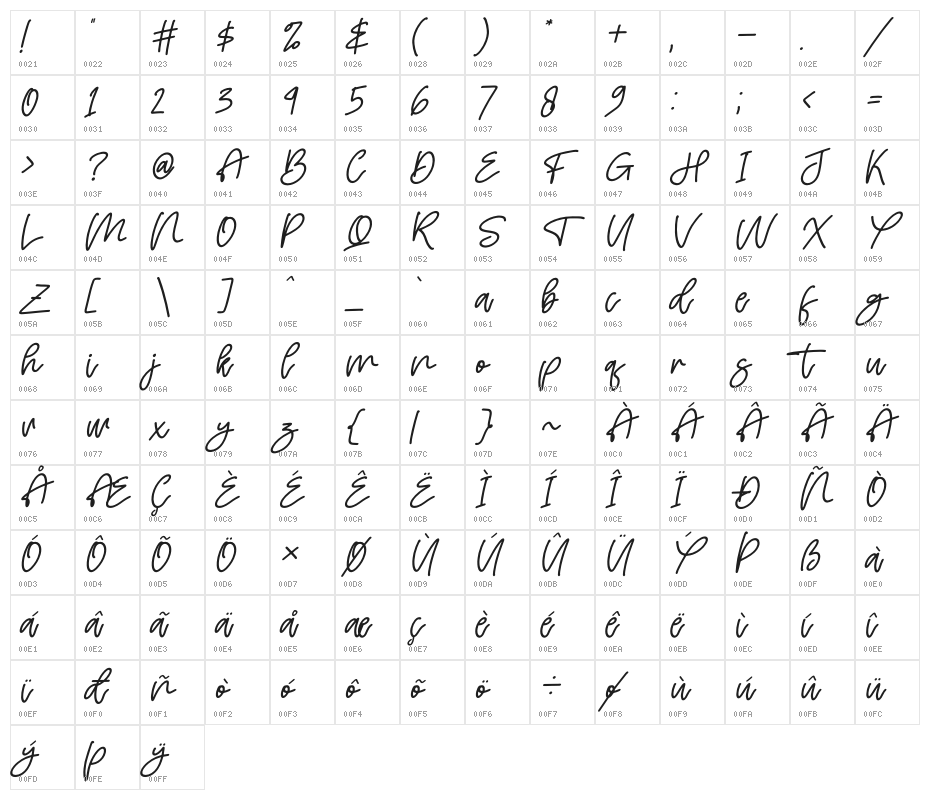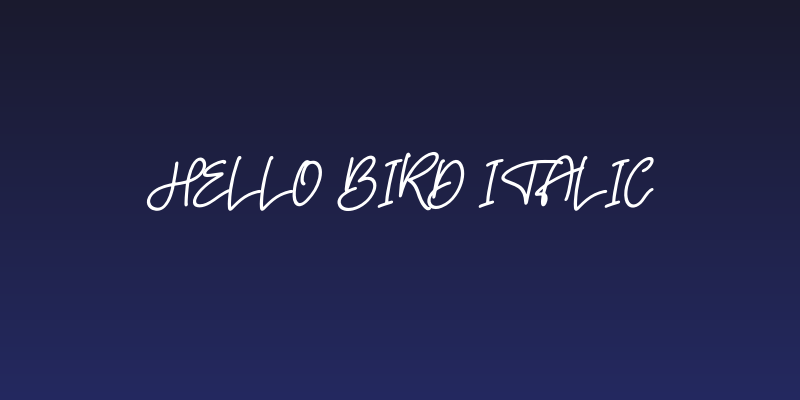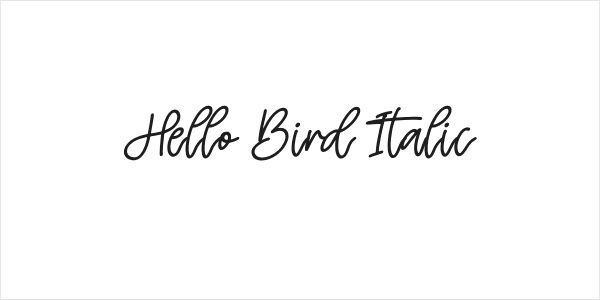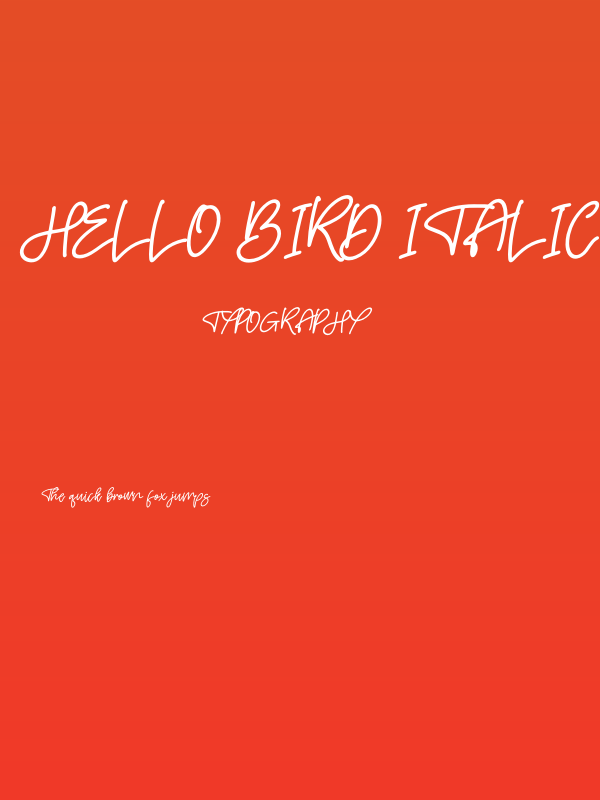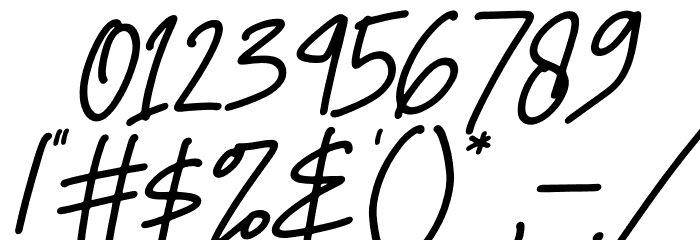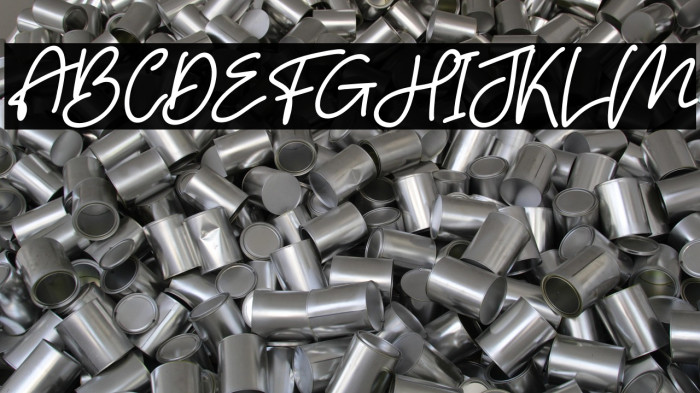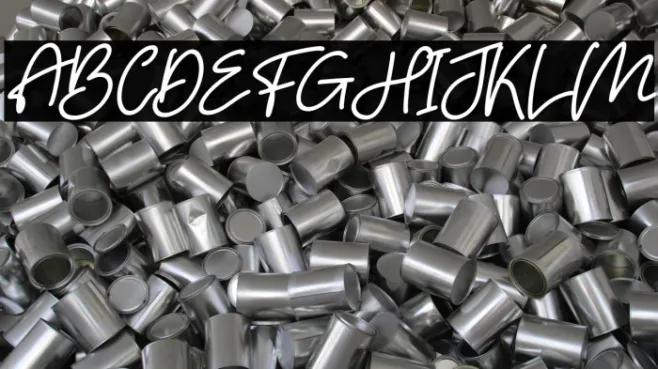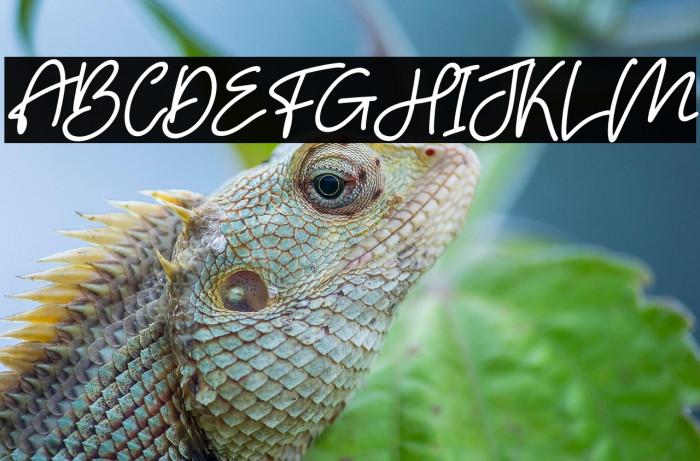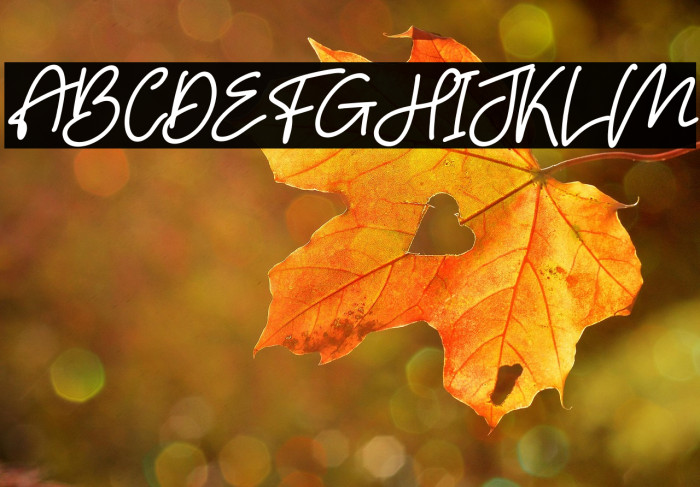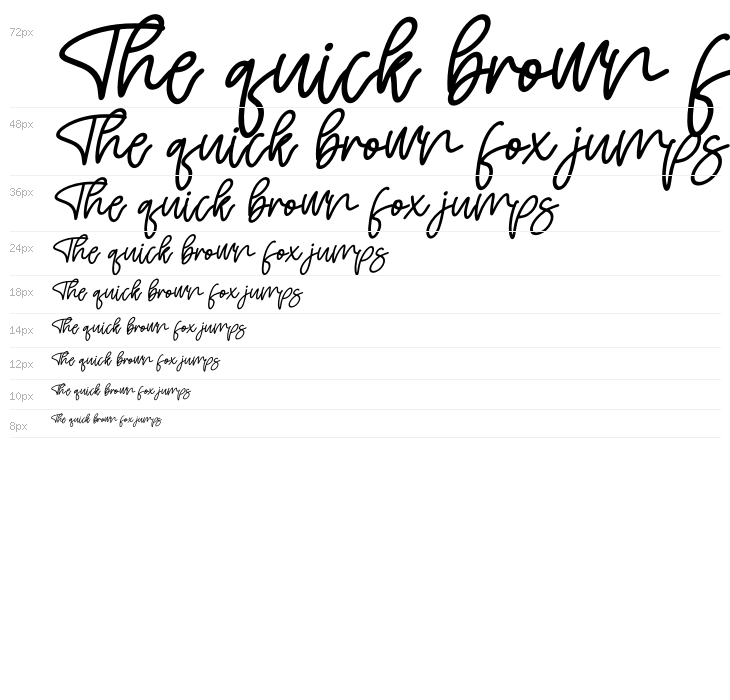
Hello Bird Italic Font
Hello Bird Italic Description
This font features a dynamic and fluid handwritten style, characterized by its italic slant and expressive strokes. The letters are interconnected, giving it a natural, cursive flow that mimics the look of personal handwriting. The uppercase letters are bold and prominent, while the lowercase letters maintain a consistent rhythm and balance. Numbers and special characters follow the same stylistic approach, ensuring uniformity across all elements. The overall design exudes a sense of creativity and spontaneity, making it ideal for projects that require a personal touch.
| Proposed Projects | Ideal for greeting cards, invitations, personal branding, and creative projects that require a handwritten touch. |